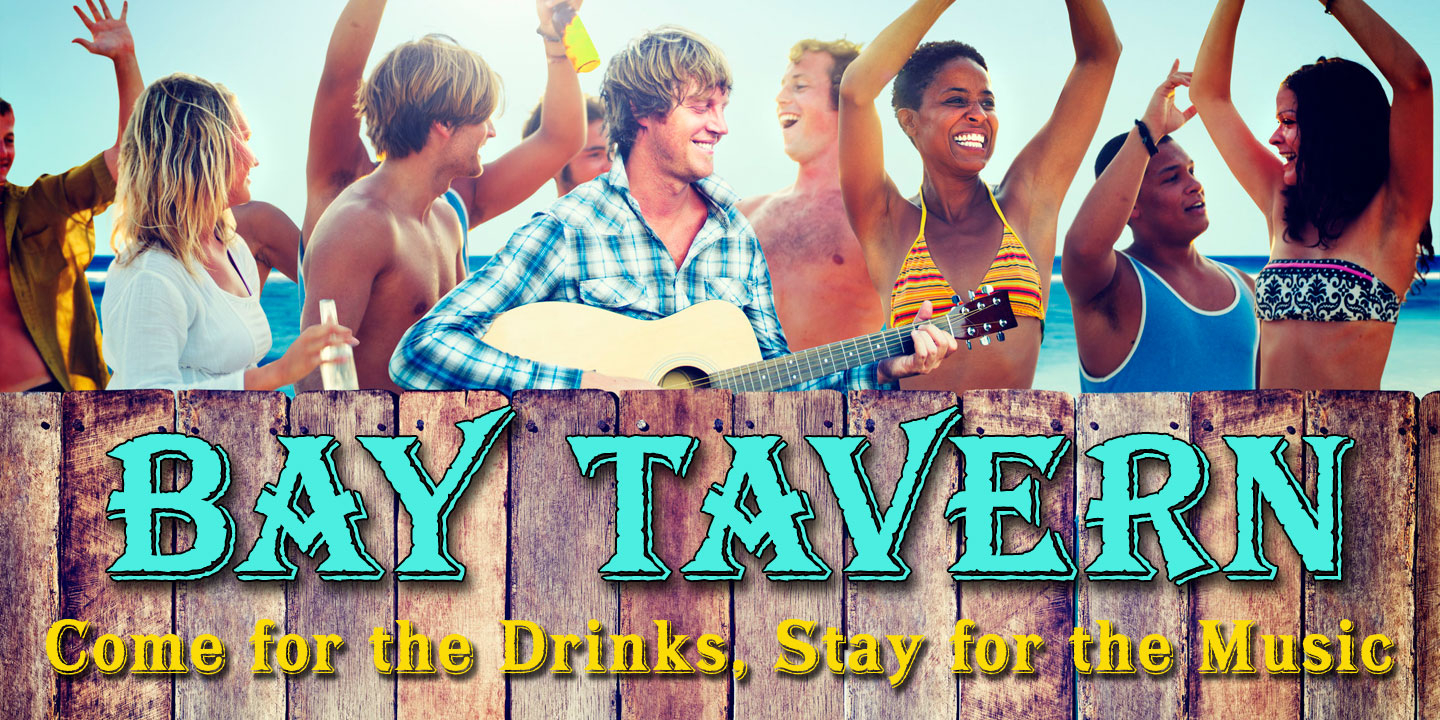
Bay Tavern Font - Bay tavern is the first weathered version of our tavern font that's based on. Installable on pc, mac, linux, ios,. Discover the free bay tavern s font at free font download !
Bay Tavern Font